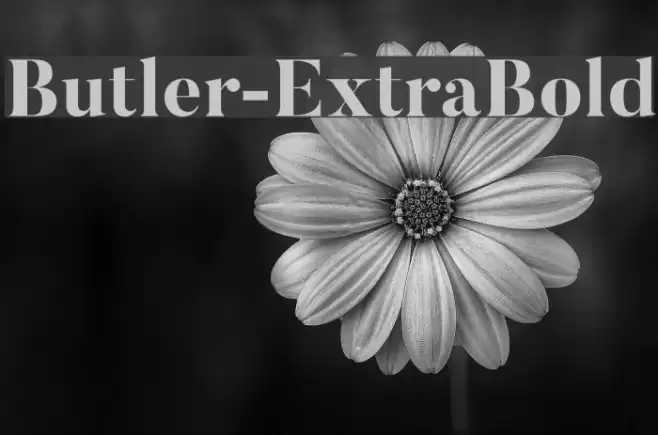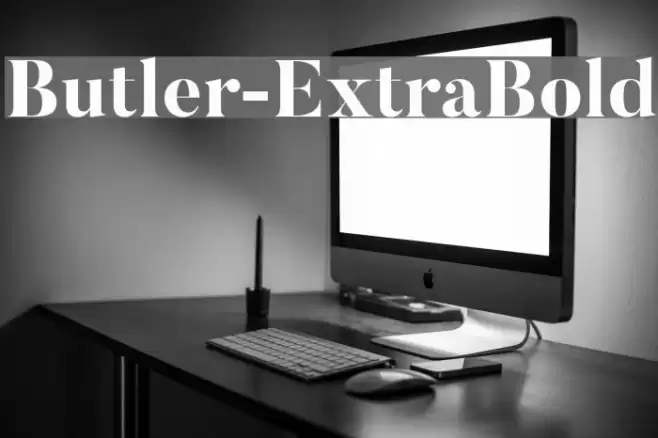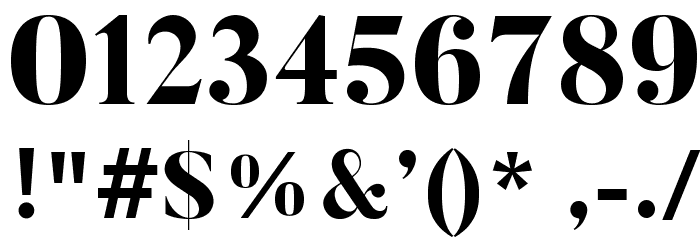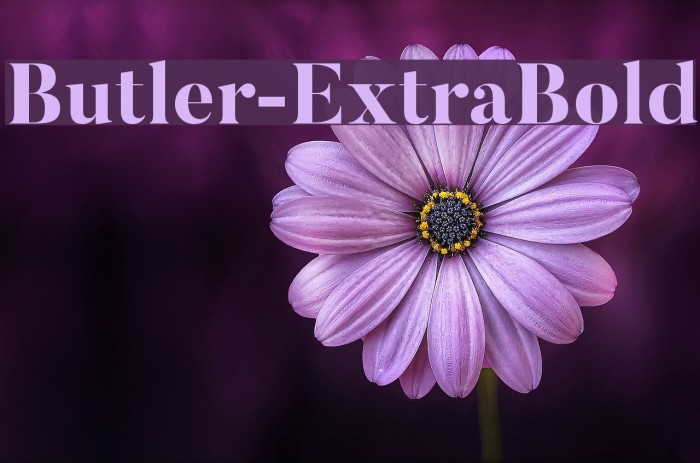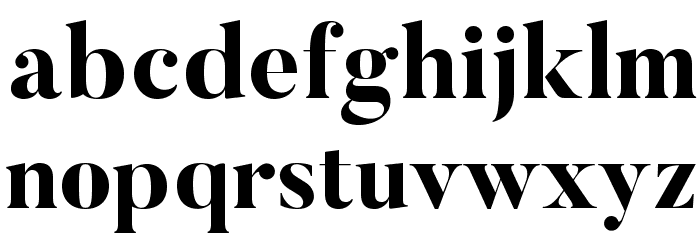
Butler-ExtraBold Font
Butler-ExtraBold Description
This font is a sophisticated blend of traditional serif elements with a modern twist, characterized by its bold and striking appearance. The uppercase letters are strong and commanding, with sharp serifs that add a touch of elegance. The lowercase letters maintain a consistent weight, providing a harmonious balance between the characters. The numerals are clear and easily readable, making them suitable for various applications. Special characters are well-defined, adding versatility to the font's usage. The overall design is both classic and contemporary, making it ideal for projects that require a touch of sophistication and style.
A bold, modern serif font with a classic touch, perfect for elegant designs from Uncategorized fonts.
- Proposed Projects: Ideal for branding, editorial design, headlines, and luxury packaging.
- Use Case: Headlines, Logos, Editorial design